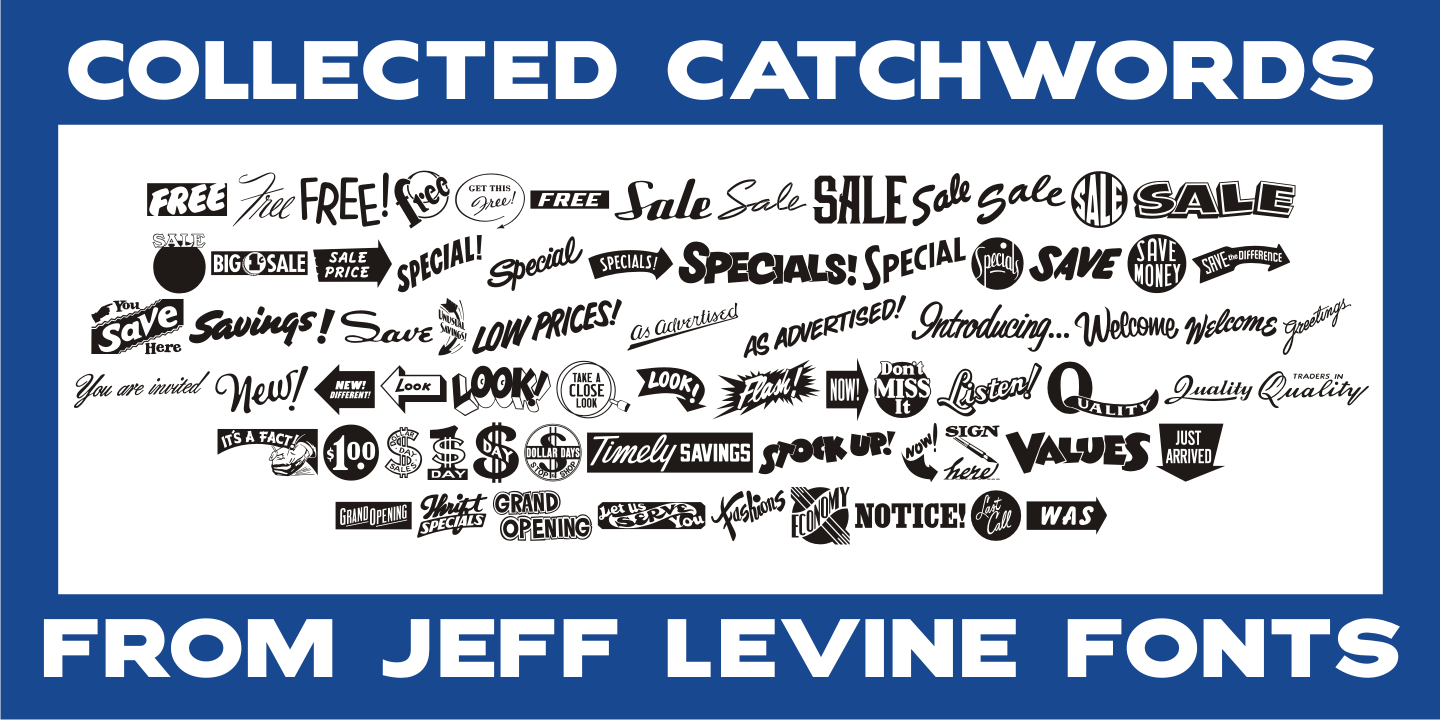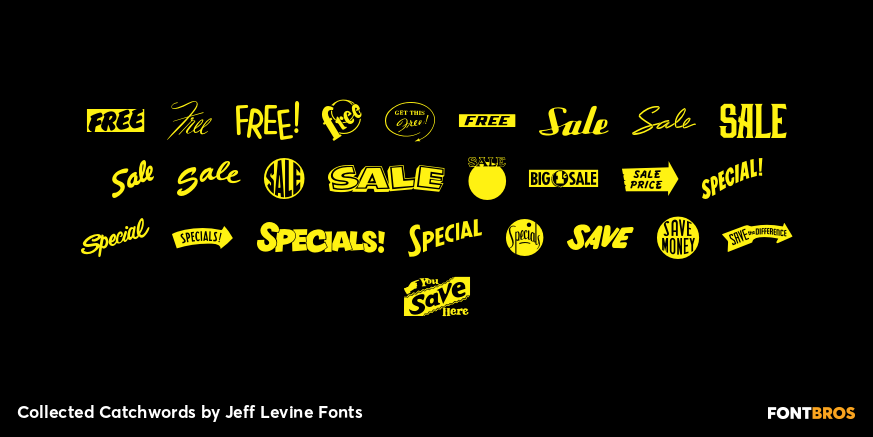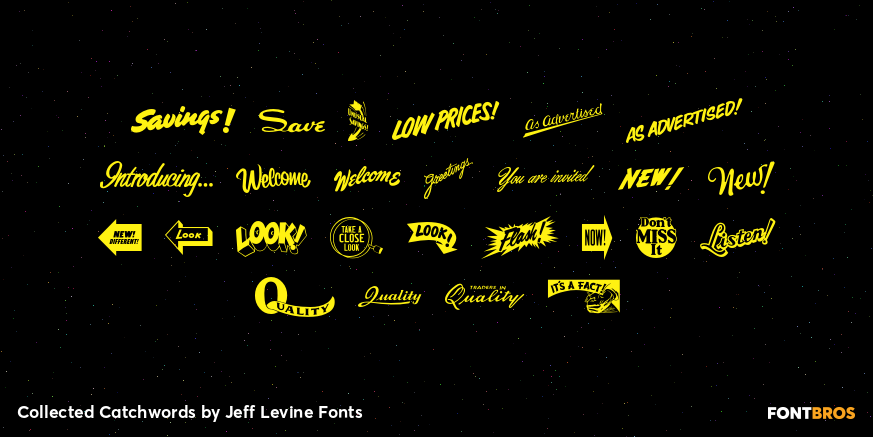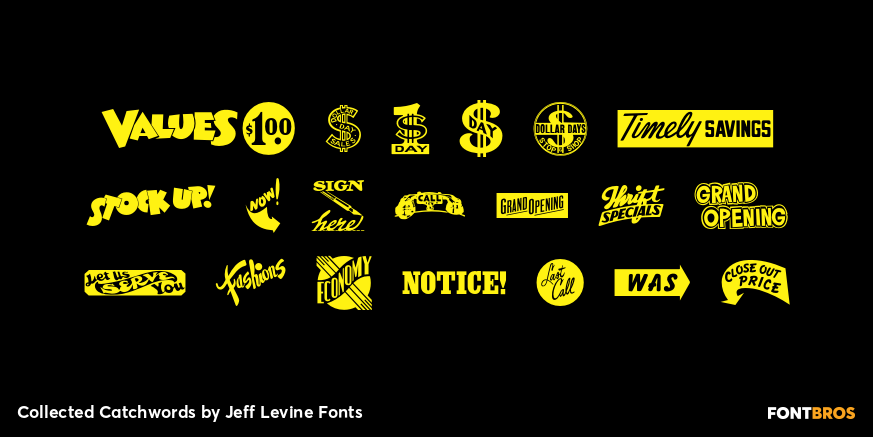
Collected Catchwords
For those designers looking for nothing more than a library of familiar catchwords and phrases re-drawn from vintage source material, look no further.
Collected Catchwords JNL gathers up ninety-three of them, picked from the dingbat typeface library of Jeff Levine Fonts and placed into one convenient font file.
'Free”, 'Sale”, 'As Advertised”, 'Dollar Days”, 'Look”, 'New” and dozens of other icons of print advertising are no more than a keystroke away.